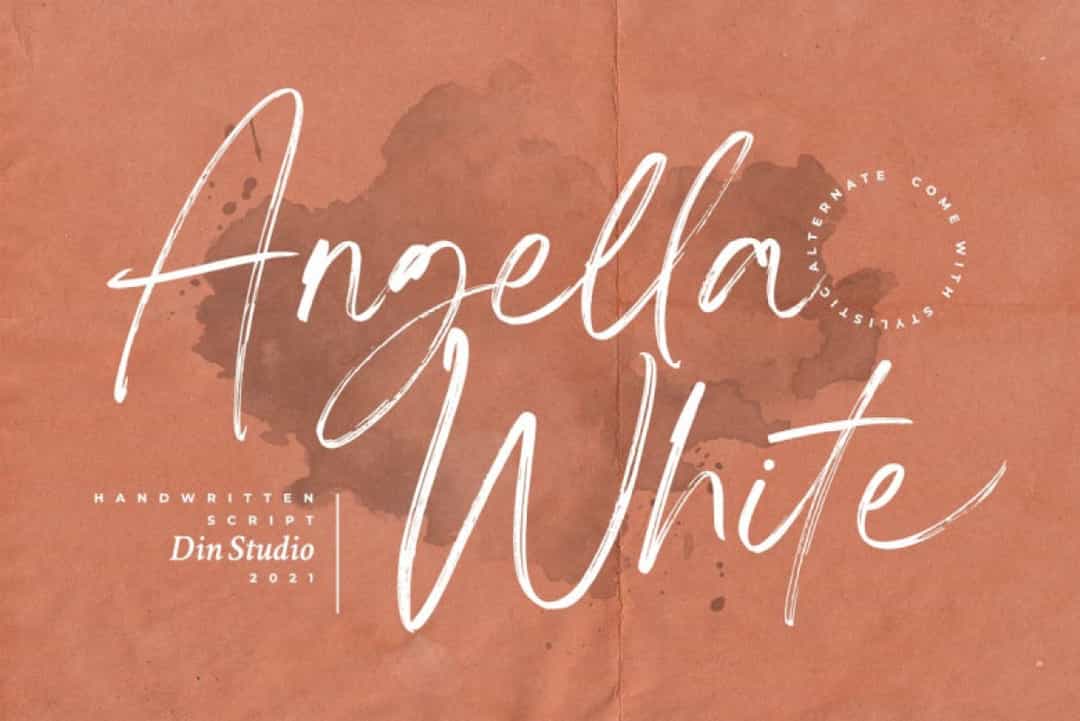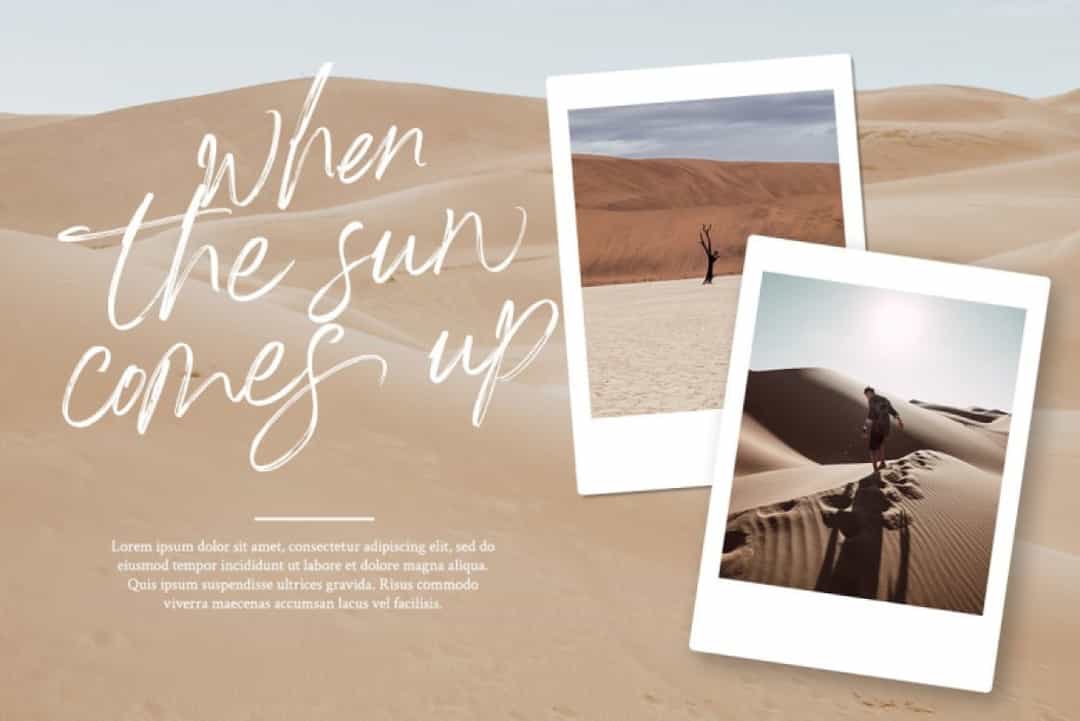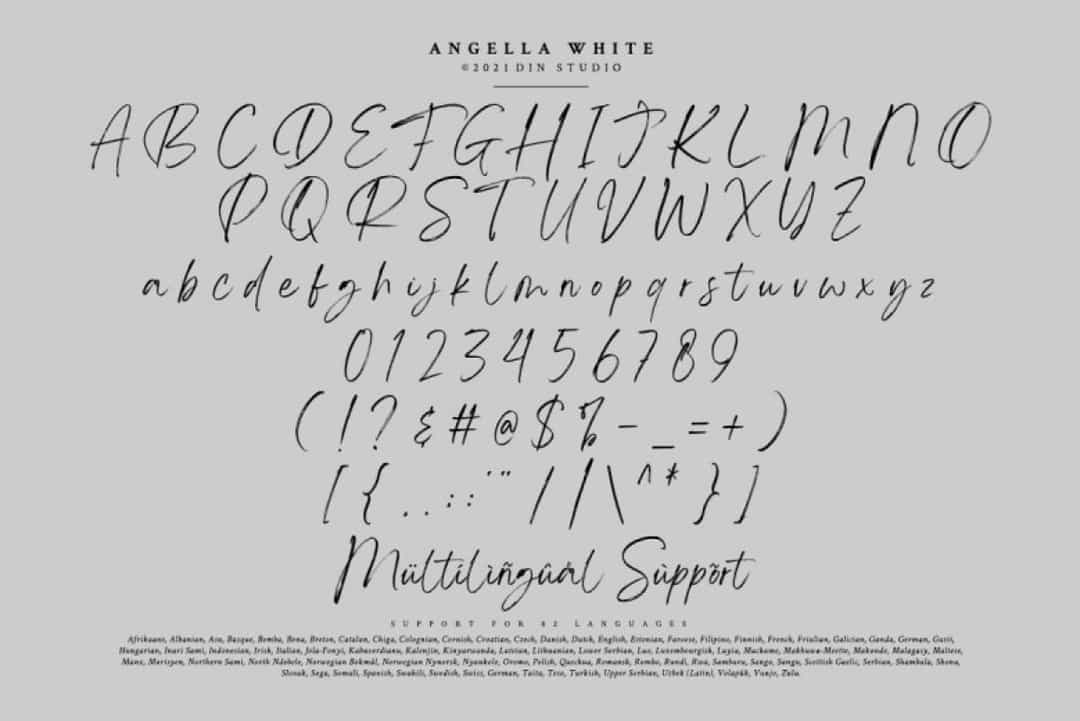
Angella White Brush is an exquisite hand-crafted font created with brush styles designed to bring joy and elevate designs! Every stroke and curve was specifically created to evoke feelings of elegance and excitement; use this font for titles, advertisements for Instagram sales online, quotes or printed items like business cards, T-shirts or invitations.